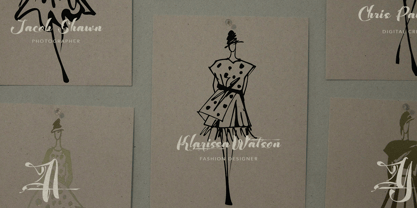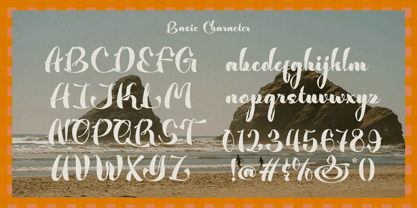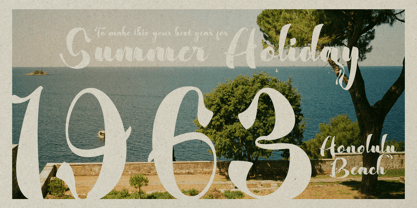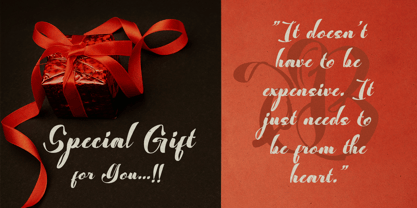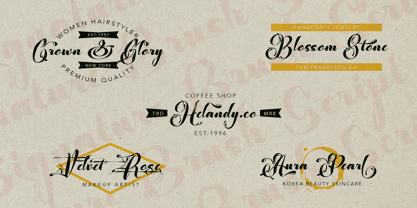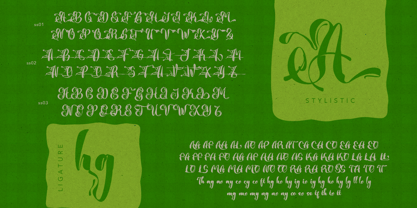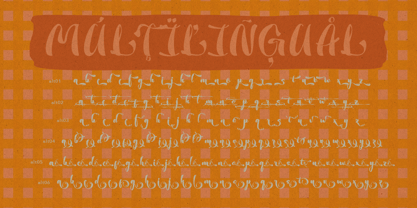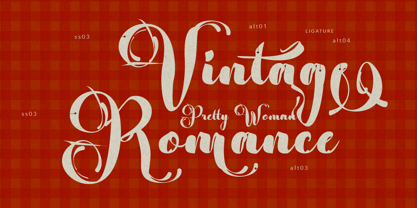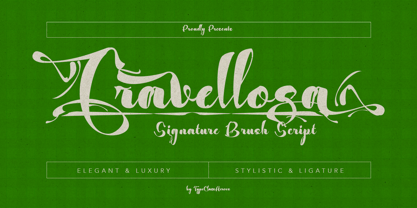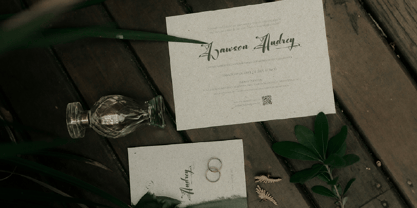
Cravellosa
Die Schriftfamilie Cravellosa wurde von Suandana ipandemade entworfen und von TypeClassHeroes veröffentlicht. Cravellosa enthält 2 Stile und Familienpaketoptionen. Mehr über diese Familie
Introducing Cravellosa, this font is a brush script style with flowing letterforms, combined with elegant and decorative ornamentation. The combination of thick and thin lines creates an artistic, luxurious, and eye-catching impression. This font is suitable for food branding, logos, invitations, titles, and other promotional designs. It creates a unique, luxurious, and memorable impression. It also enhances product names, providing a more distinctive and strong identity, and conveying a sense of quality. The decorative letterforms make product names stand out, making them easily recognizable by consumers.